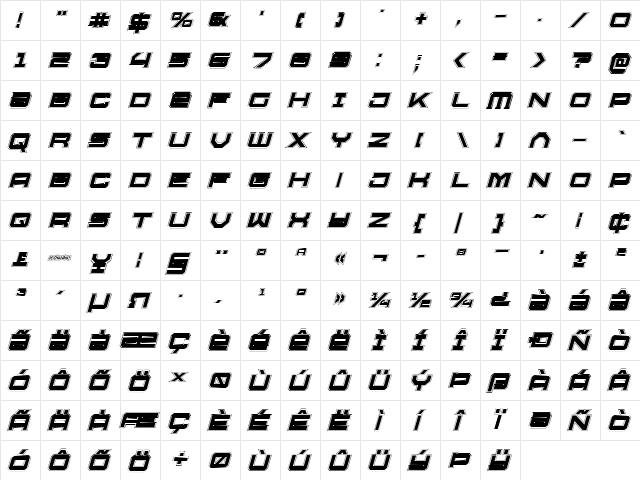
U.S.S. Dallas Academy Italic Italic Font Preview
U.S.S. Dallas Academy Italic Italic
U.S.S. Dallas Academy Italic Italic Font Details
Design Context for U.S.S. Dallas Academy Italic Typeface
U.S.S. Dallas Academy Italic is a composed and adaptable typeface that performs quietly and consistently across a wide range of design contexts. The slanted form adds forward momentum and visual energy.